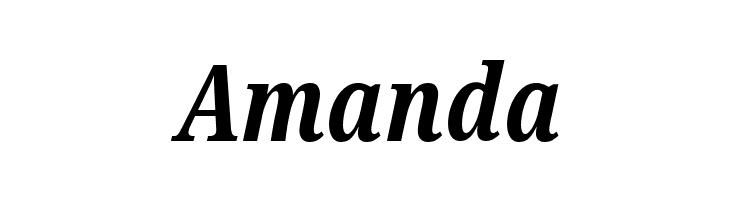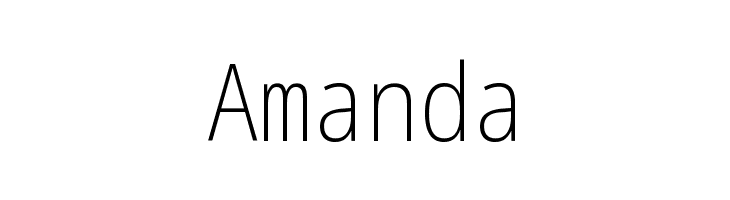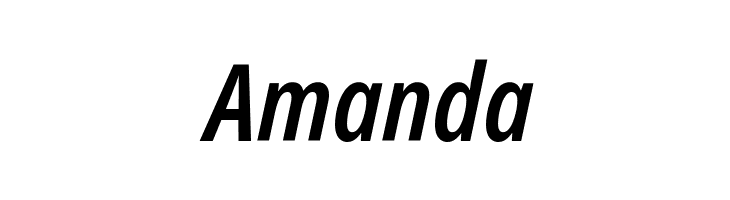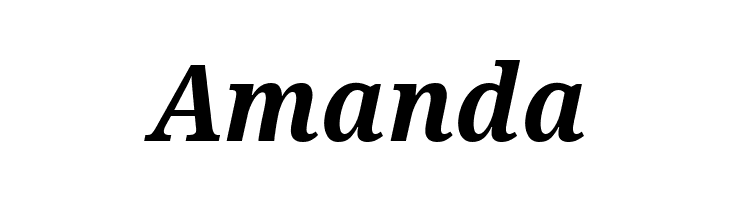
A modern, extra-condensed, extra-bold sans-serif font with tight spacing.
• Noto Sans Arabic Condensed Black
A bold, condensed font with a modern and clean design.
Semi-condensed, modern sans-serif with balanced proportions.
A modern, geometric font with a condensed and structured design.
• Noto Sans Devanagari UI SemiBold
A modern sans-serif font with uniform stroke width and slightly condensed proportions.
A bold, modern font with a semi-condensed style, ideal for impactful displays.
A condensed, light-weight typeface with clean lines and high legibility.
A bold, italic, extra condensed serif font with a modern yet classic appeal.
• Noto Sans Cham SemiBold
A clean, semi-bold sans-serif font.
• Noto Sans Bengali SemiBold
A modern, clean sans-serif font with excellent readability and balanced proportions.
A clean, semi-condensed, light-weight font with a modern yet classic design.
• Noto Serif Armenian ExtraBold
A bold, serif font with strong strokes and classic elegance.
A clean, modern font with medium weight and condensed width, ideal for efficient space use.
A monospaced, extra condensed, extra light sans-serif font with a modern and minimalistic design.
A sleek, extra condensed, and light font with a modern aesthetic.
• Noto Sans Hebrew Condensed Thin
A clean, minimalistic font with thin strokes and a condensed form, offering a modern and elegant look.
• Noto Serif Sinhala Black
A bold and robust font with thick strokes and a strong presence.
A bold, semi-condensed serif font with italic styling and moderate contrast.
A condensed, thin font with a clean and modern design.